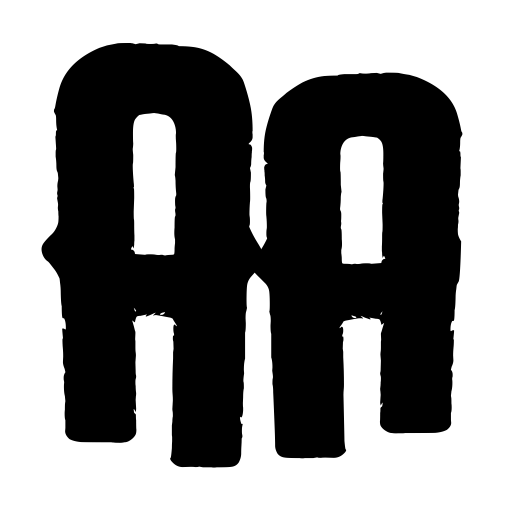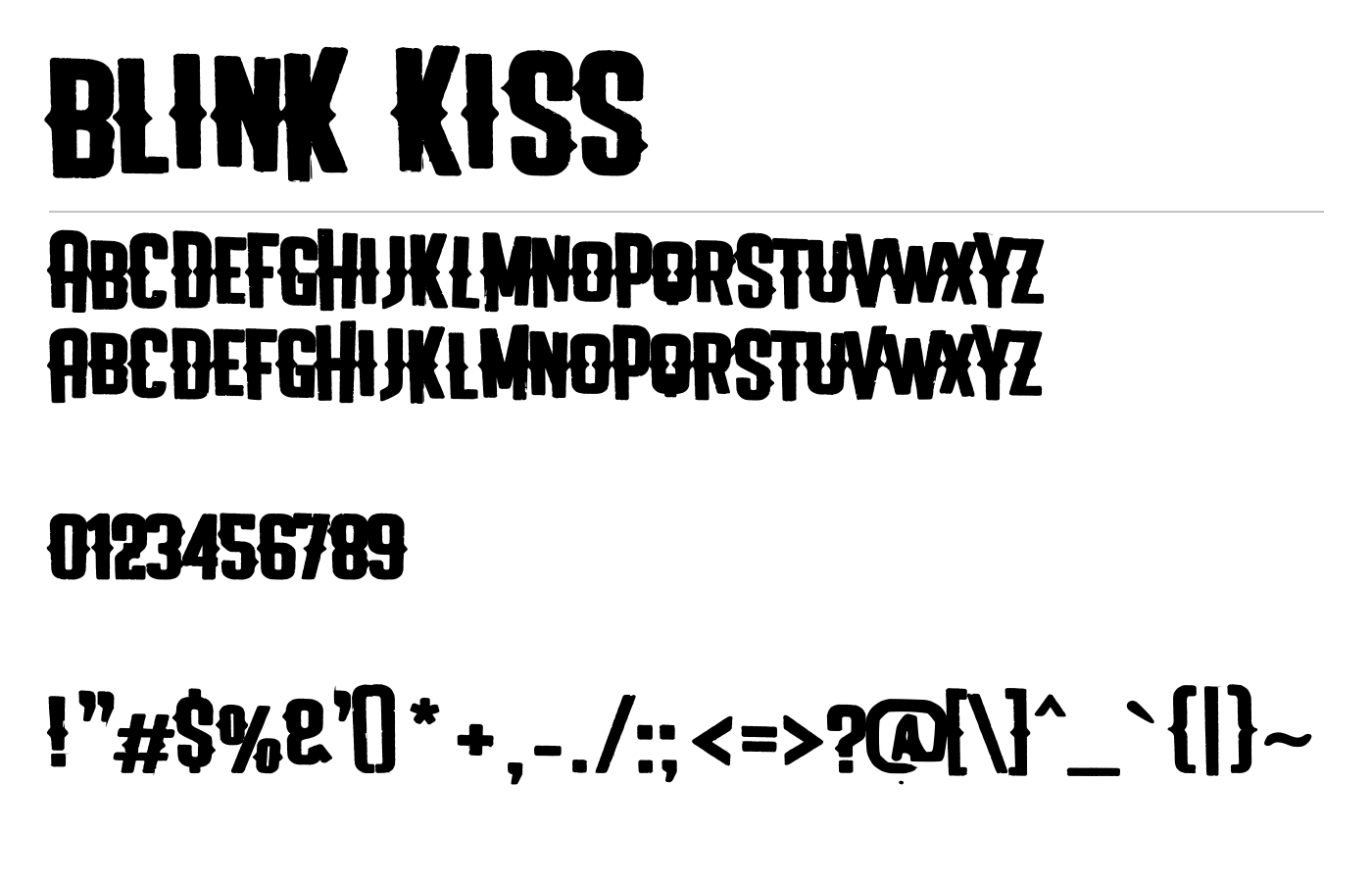
Blink Kiss is a bold, condensed sans serif font with a strong, rugged feel, featuring slightly uneven and distressed edges that add a vintage, handcrafted touch. Its heavy weight and narrow width make it ideal for impactful headlines, logos, and branded designs that seek a gritty, energetic personality. This font works especially well in contexts where a bold statement with a bit of retro or rebellious character is desired.
Blink Kiss Font